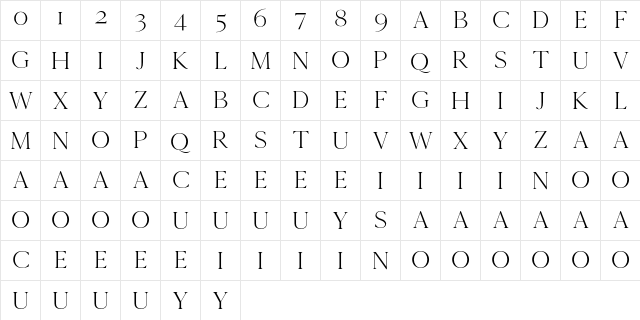
Cammron Demo Regular Font Preview
Cammron Demo Regular
Cammron Demo Regular Font Details
| Foundry | Creativetacos |
| Designer | Faraz Ahmad |
Design Context for Cammron Demo Typeface
Cammron Demo is a composed and adaptable typeface that performs quietly and consistently across a wide range of design contexts.